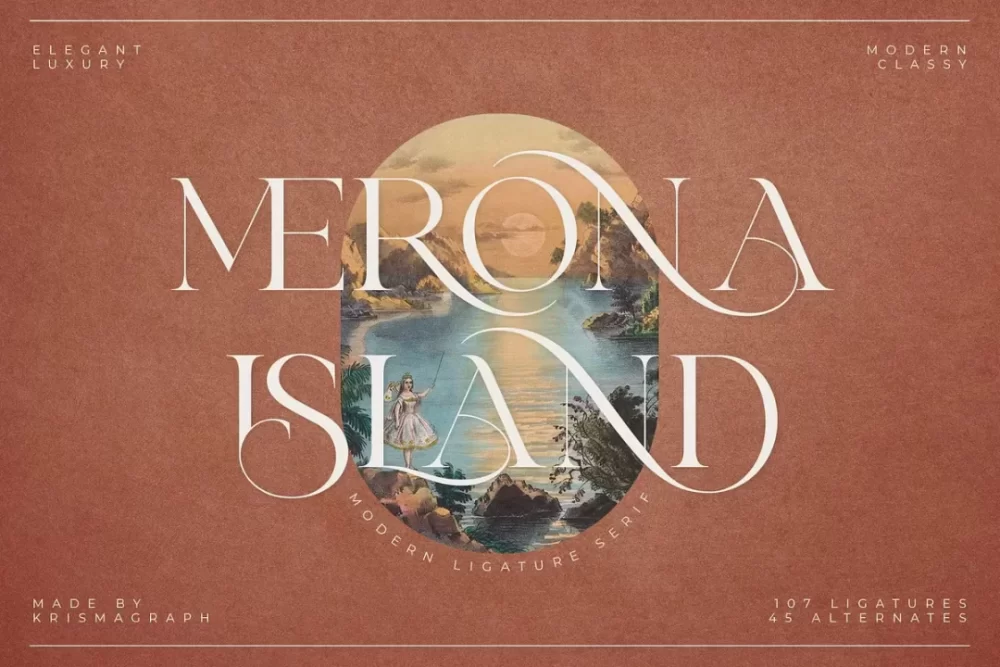
Merona Island Font
Merona Island is a Modern Ligature Serif Font. Its soft curves mixed with high-contrast glyphs, give it a feminine and masculine quality. It comes with 107 unique ligatures and 45 alternates. Great in layout design for quotes or body copy, best used as a display for headings, logos, branding, magazines, product packaging and invitations.